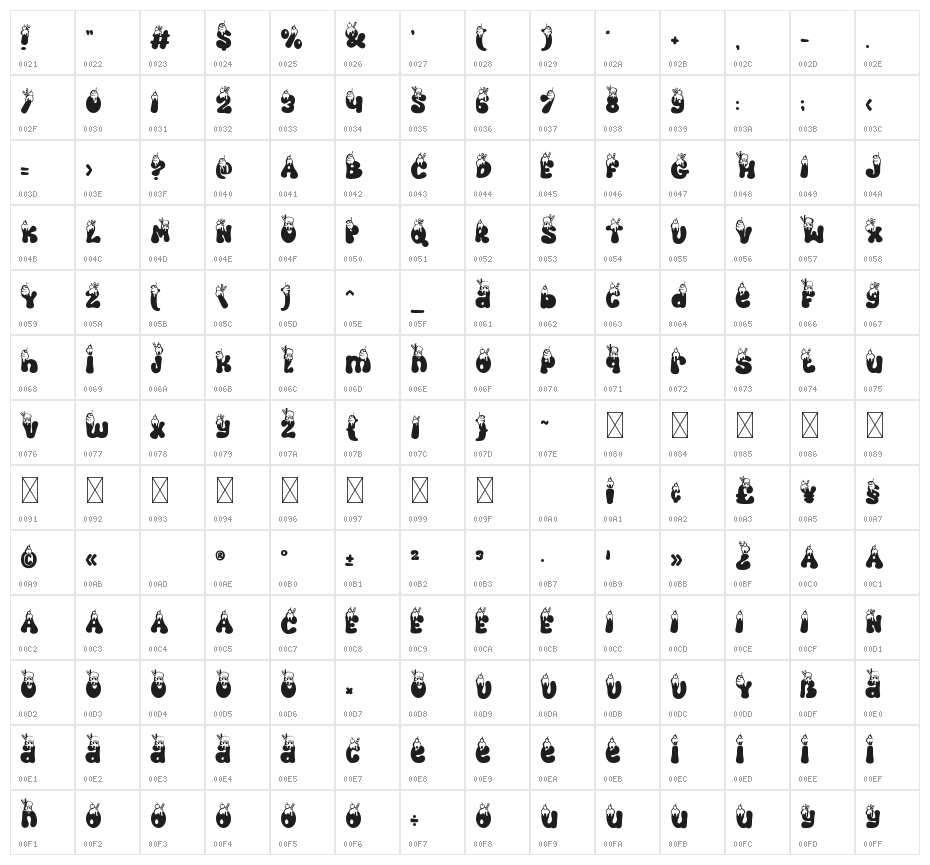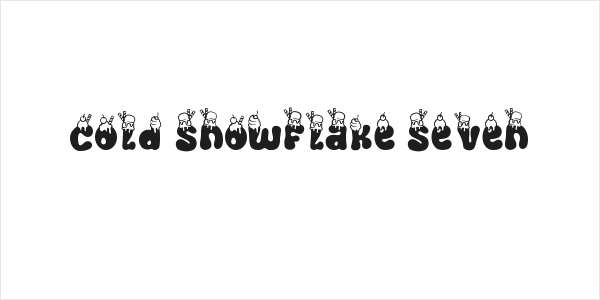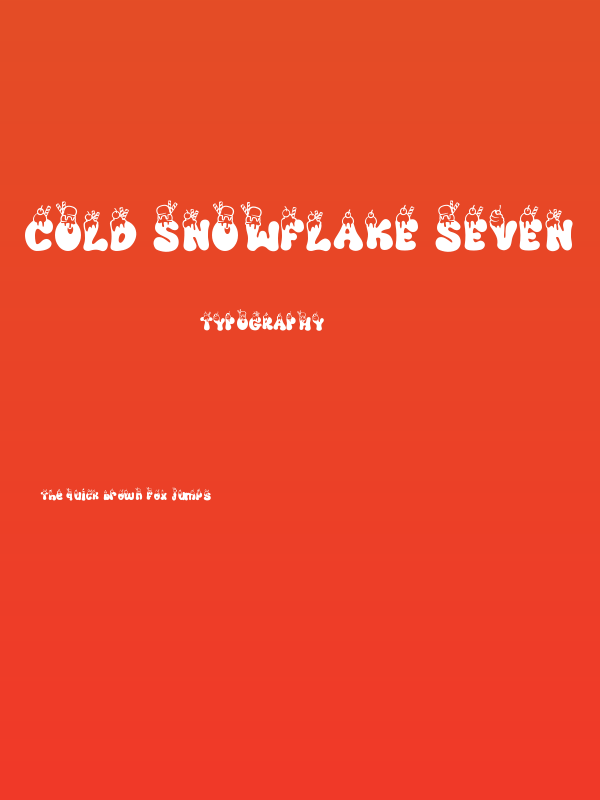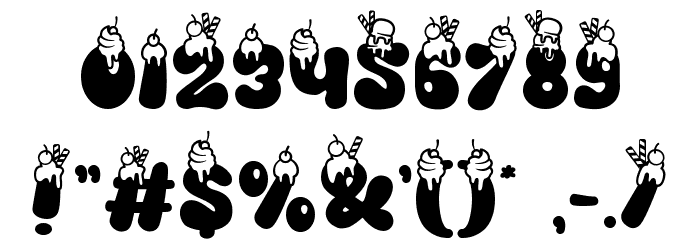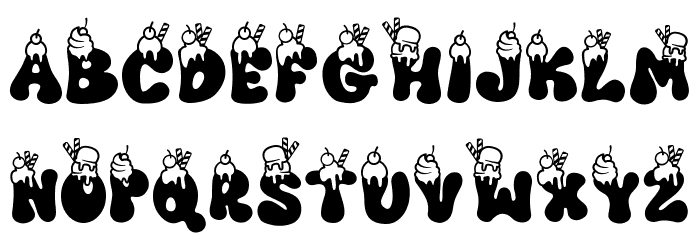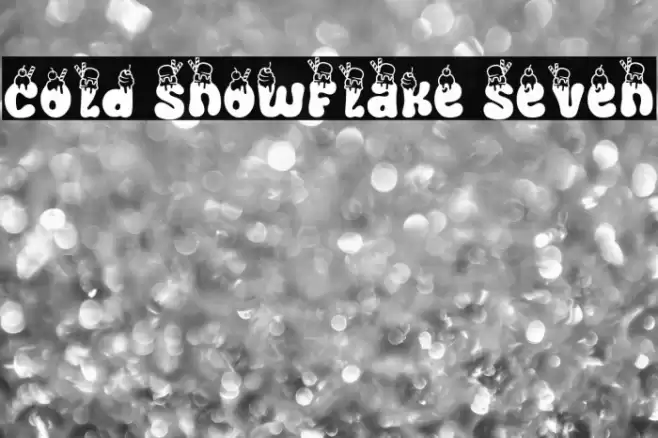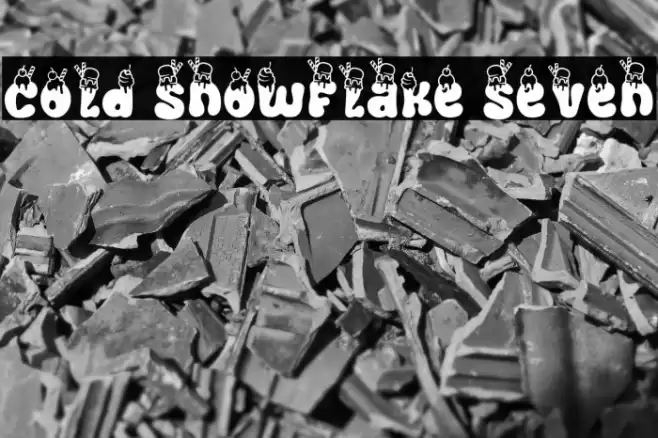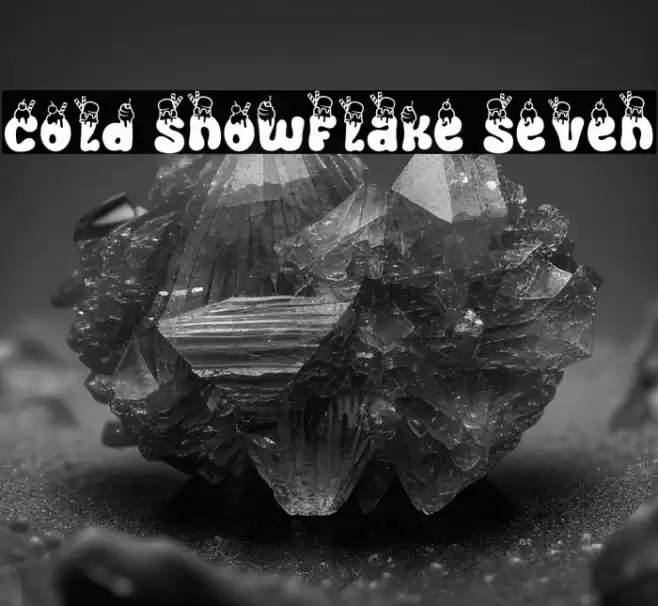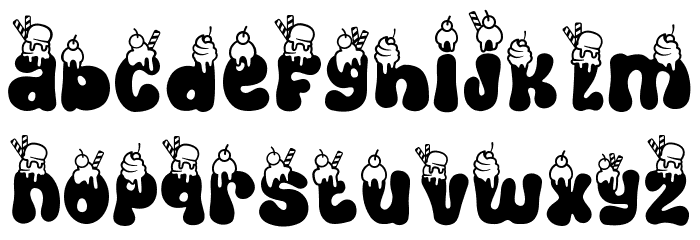
Cold Snowflake Seven Font
| Gesamtstil | Playful, Whimsical, Fun |
| Anwendungsfall | Logos, Headlines, Posters, Branding |
| Vorgeschlagene Projekte | Ideal for children's book covers, ice cream shop branding, playful event invitations, or any project needing a fun and whimsical touch. |